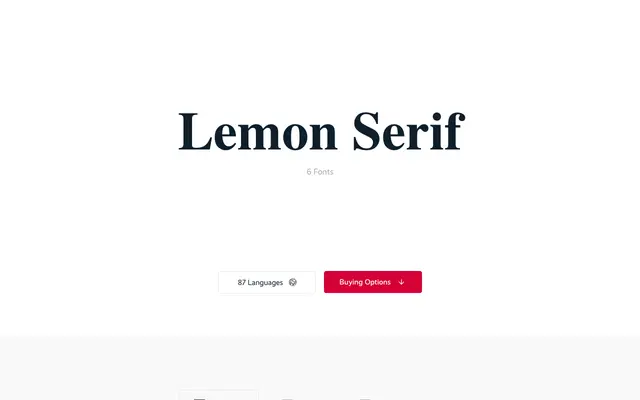
Lemon Serif
A low-contrast text serif by Jürgen Huber, designed as the companion face to Lemon Sans, with unicase variants and thorough OpenType feature support.
Six styles cover Regular, Bold and their italics, plus two unicase weights for upright use. Each style includes small caps, three sets of figures and a selection of ligatures across 513 glyphs and 87 languages. The low stroke contrast is intentional, keeping the face legible at small sizes and over long passages of continuous text.
Described explicitly as a text face with low contrast, designed to accompany Lemon Sans; its even stroke weight and text-optimised design place it in the low-contrast serif subcategory.